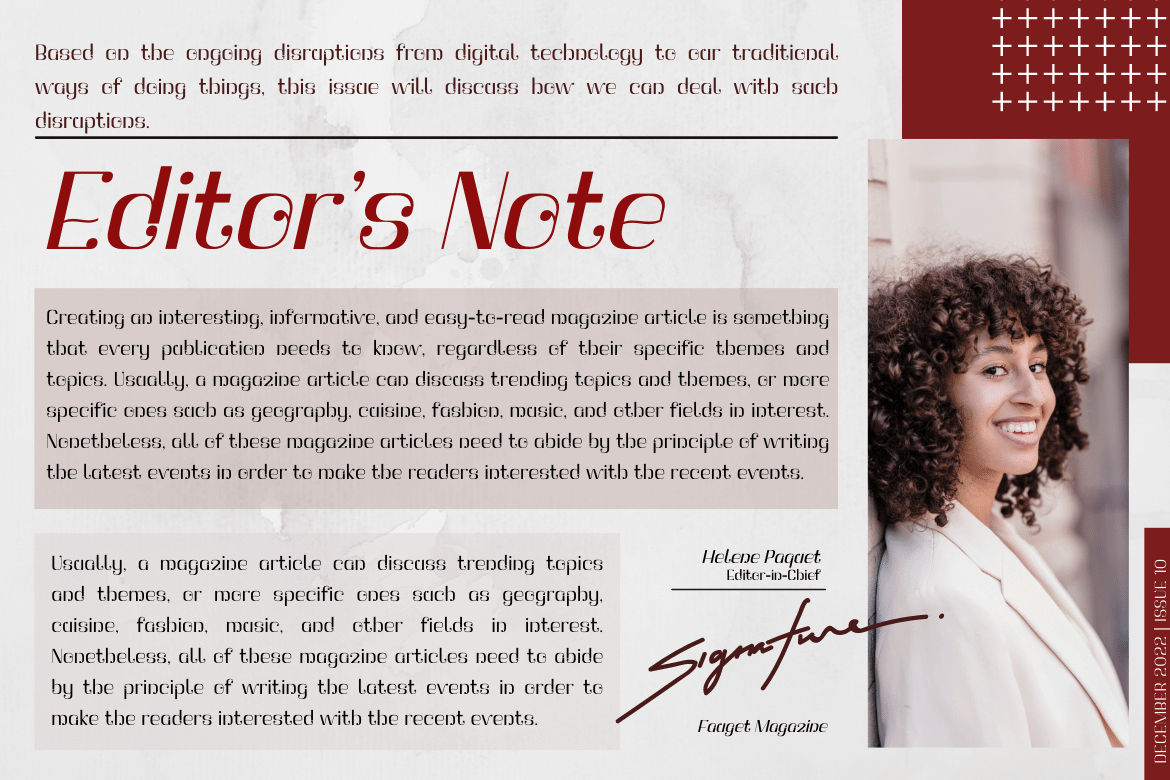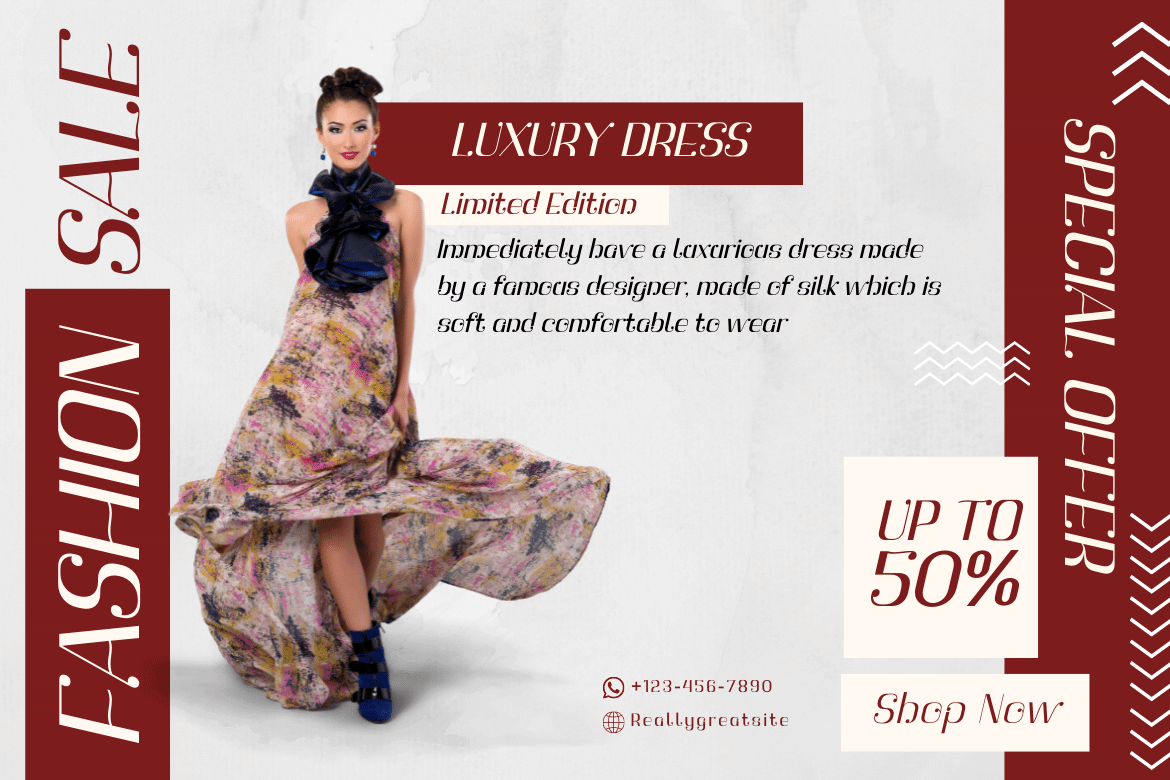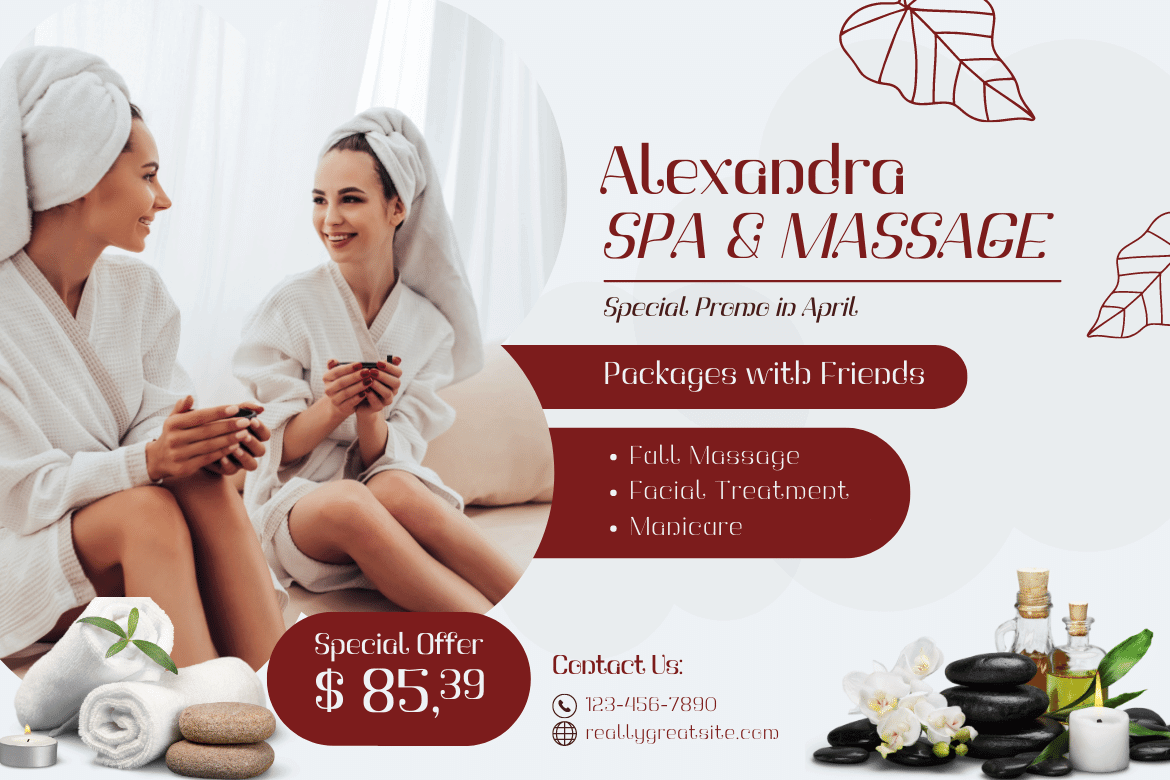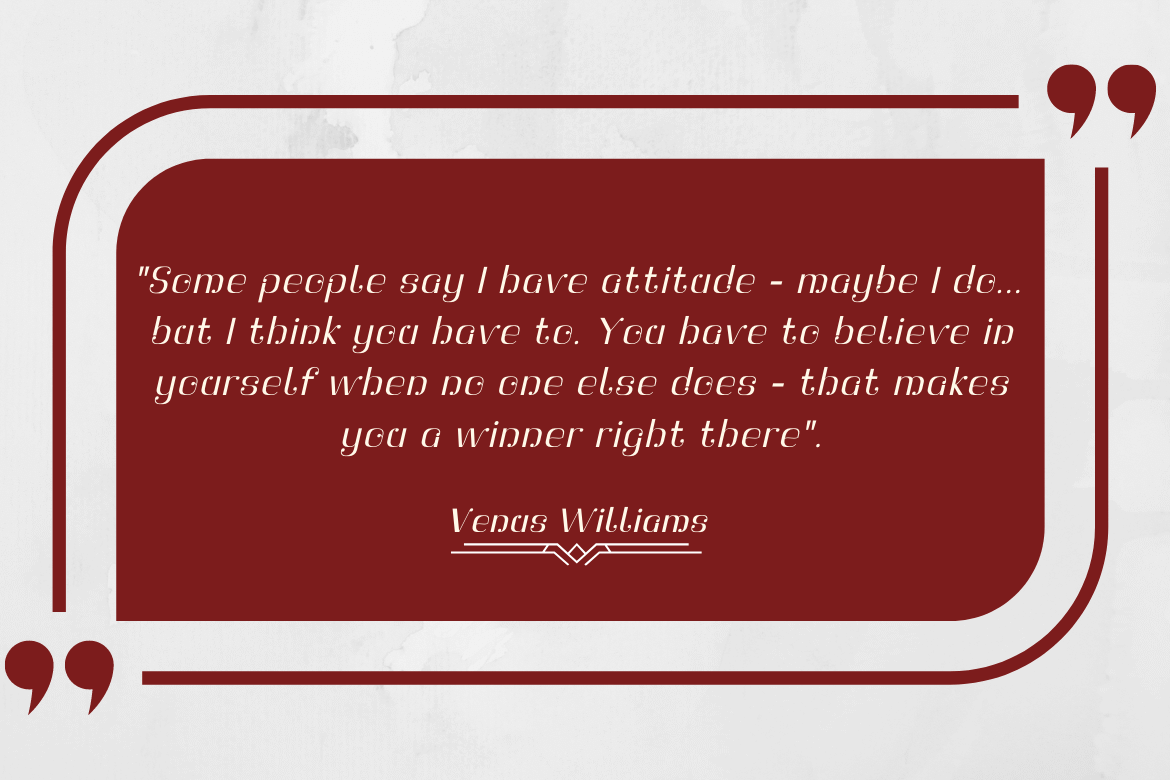
Botuna Font
Botuna Display Font
It’s a typeface designed by Botuna San Serif. This is a high-end font family with 18 different styles. Designed to aid you in the creation of visually stunning projects of all types. This font is simple to use and integrates seamlessly with any standard software. Your project will stand out with this font!
of course, your various design projects will be perfect and extraordinary if you use this font because this font is equipped with a font family, both for titles and subtitles and sentence text, start using our fonts for your extraordinary projects.